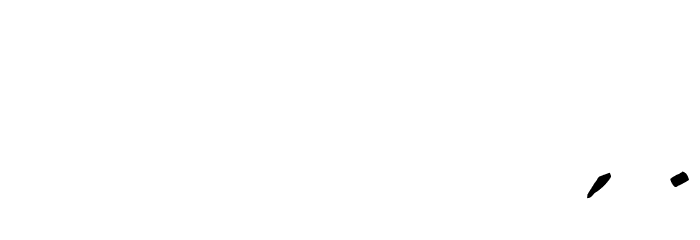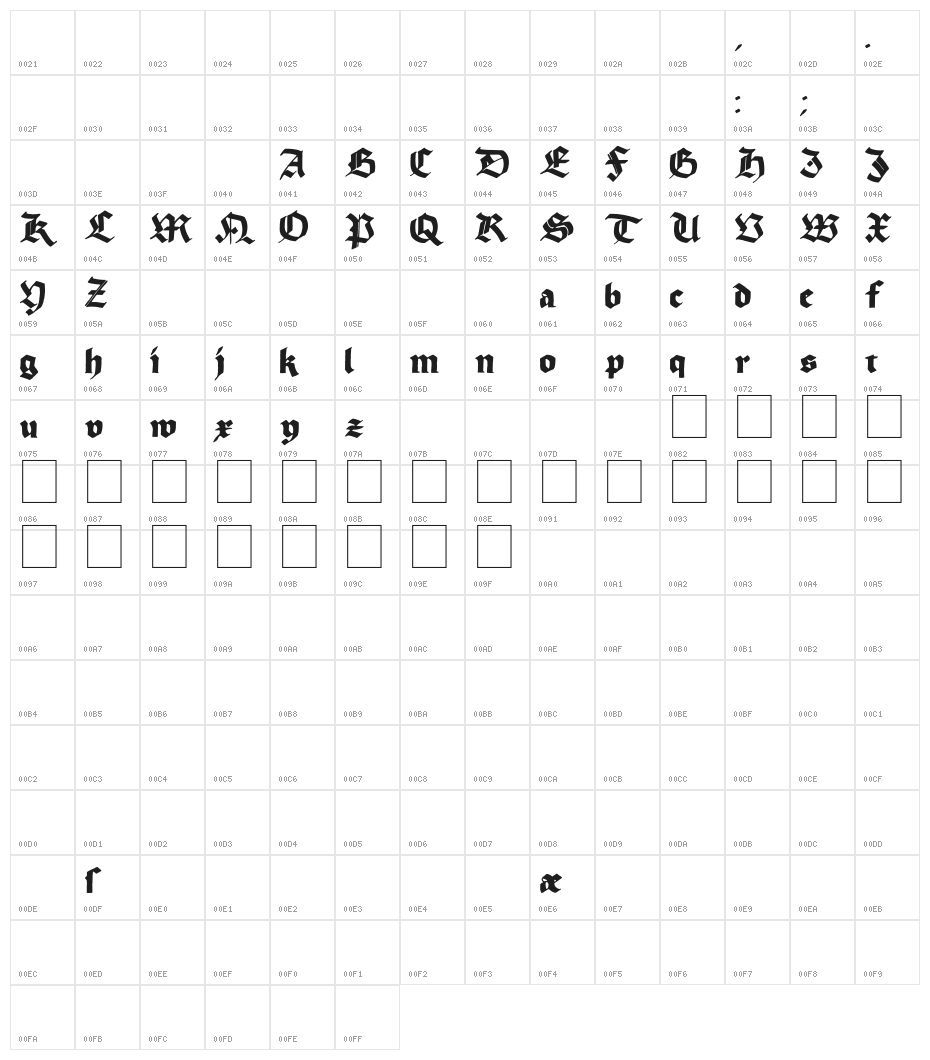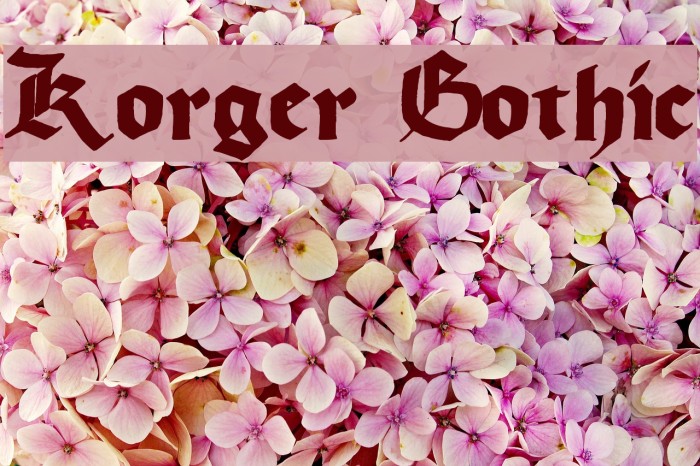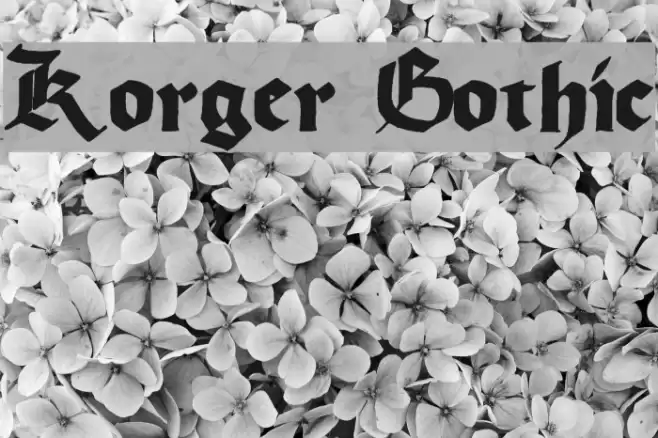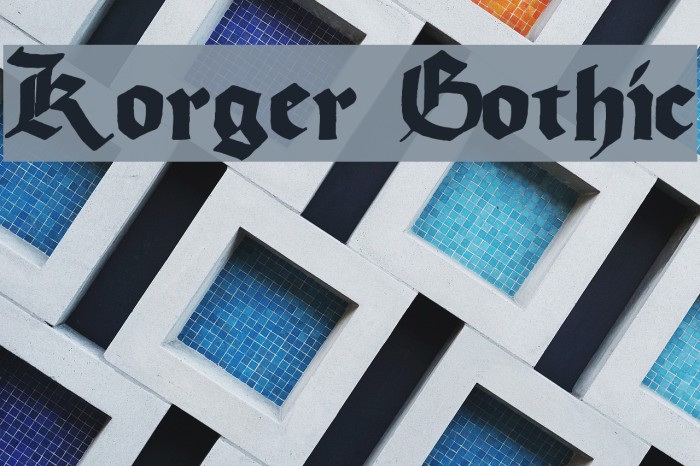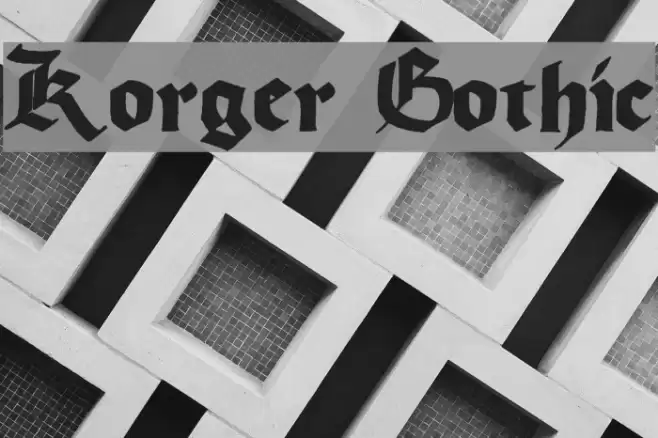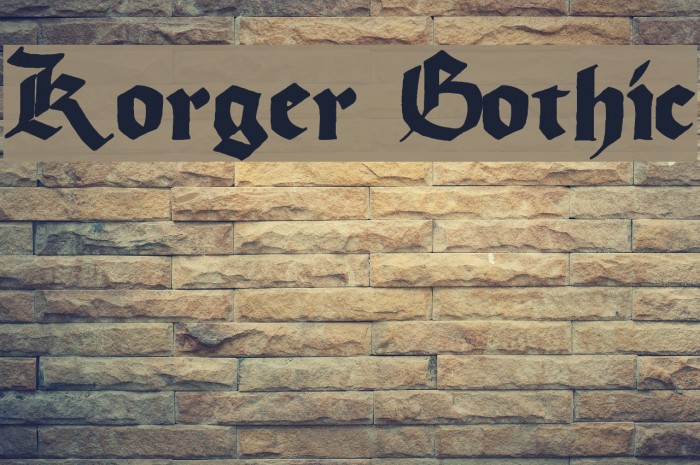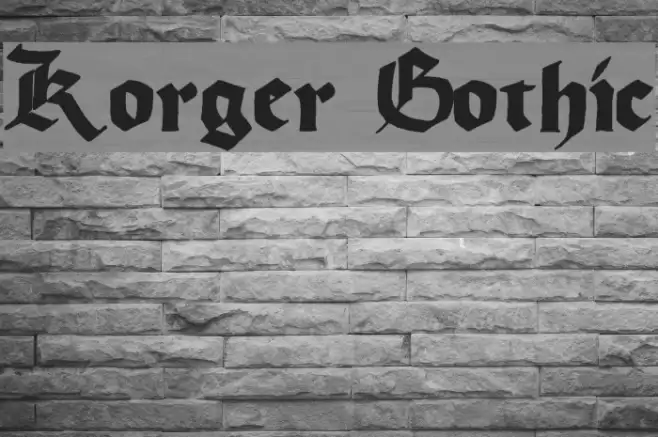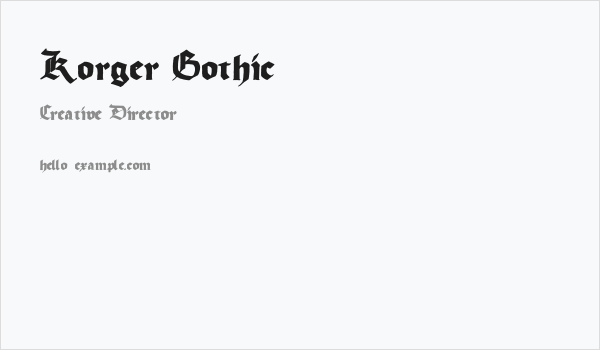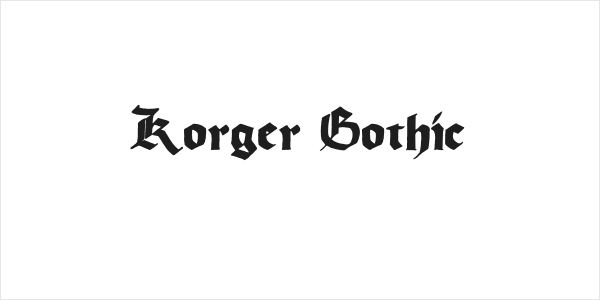
Korger Gothic Font
Korger Gothic Description
This font exudes a strong, historical presence with its intricate and angular design. The characters are sharply defined, featuring bold strokes and pointed serifs that evoke a medieval or Gothic aesthetic. The uppercase letters are particularly ornate, with elaborate flourishes and a sense of grandeur. The lowercase letters maintain this style, offering a consistent visual theme throughout. The numbers and special characters are equally stylized, ensuring a cohesive look across all text elements. This font is ideal for projects that require a dramatic and classical touch, such as historical documents, themed event invitations, or branding for products that wish to convey a sense of tradition and strength.
| Proposed Projects | Ideal for historical documents, themed event invitations, or branding that conveys tradition and strength. |